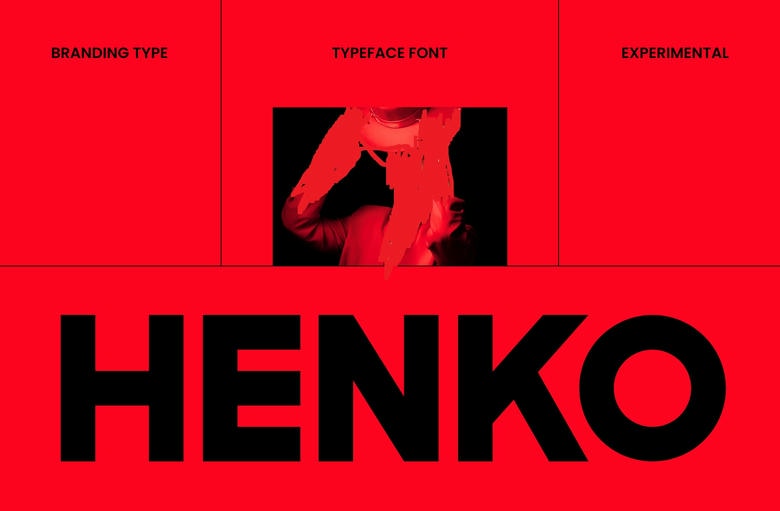
Henko Font
Henko is a daring and contemporary sans serif typeface, which has a clear and assured character that is extremely readable. With bold typography, balanced lines, and curved lines, Henko has a modern appearance, which would be ideal in impressive headlines and visual brands.
The font is good in branding, logo designing, posters, editorial layouts, social media graphics, web design, and corporate work. The simplicity of its powerful style makes it unique and at the same time makes it flexible in usage that is professional and can be used in a vast variety of design practice.
Henko is a bold and clean designer typeface that is based on simplicity thus providing a certain assurance to the designers who want simplicity, power, and a modern mindset in just a single typeface.